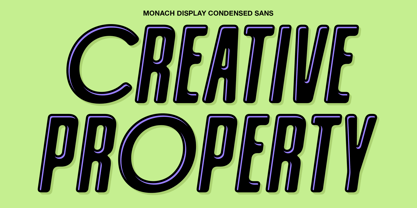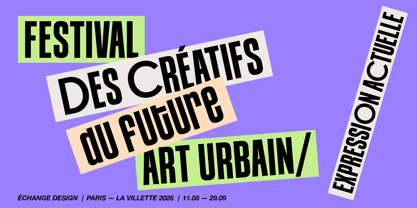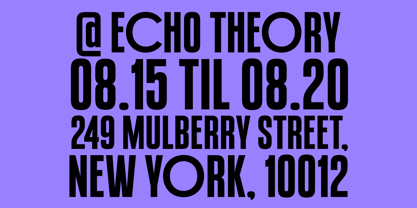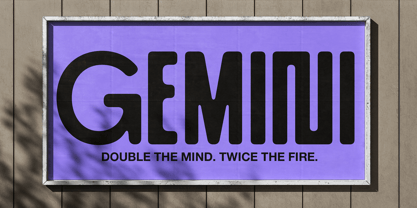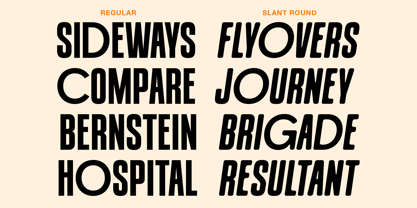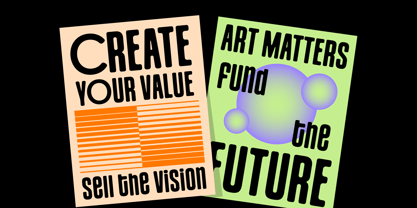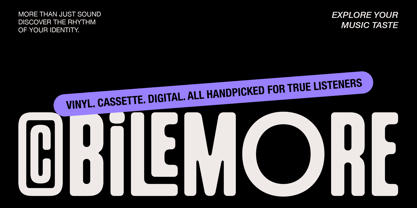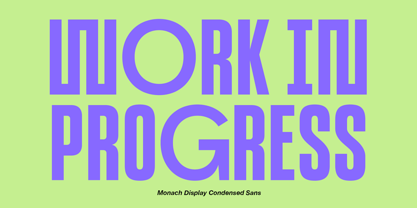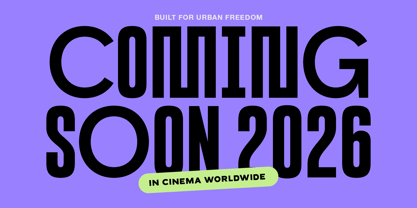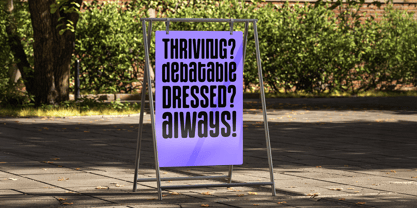
Monach
by Ironbird Creative
The Monach Font Family was designed by Bagas Ferdiansah, Septianto Nugroho and published by Ironbird Creative. Monach contains 4 styles and family package options.
IC Monach is a modern display condensed sans serif designed to stand out. Its ultra-narrow letterforms make it perfect for bold headlines and eye-catching layouts, even in tight spaces.
It comes in four styles: Regular, Rounded, Slant, and Slant Rounded and includes alternates and ligatures to make your designs even more expressive.